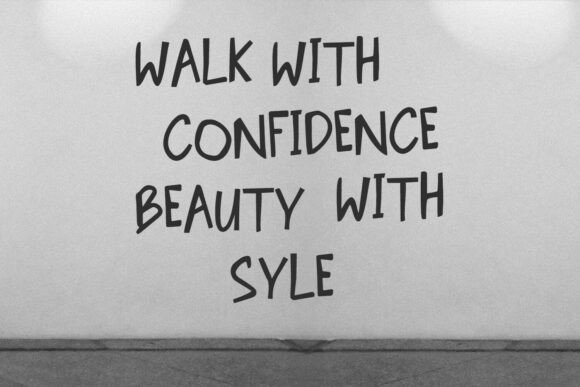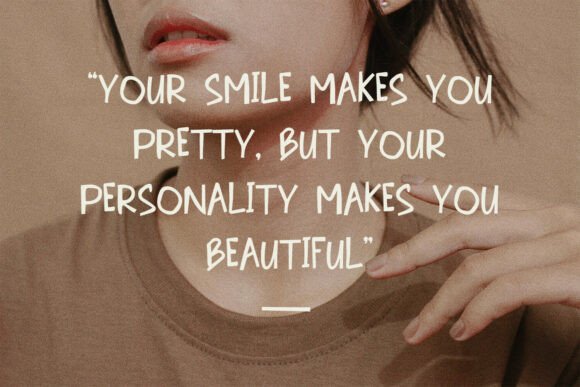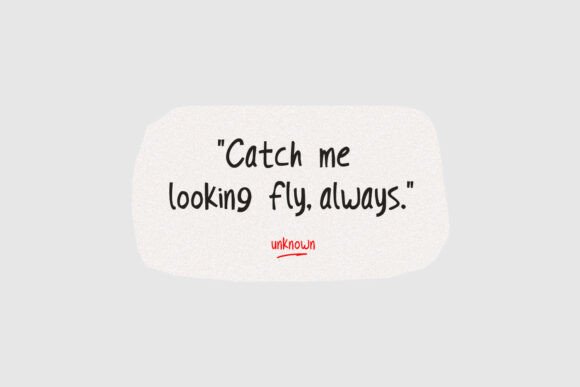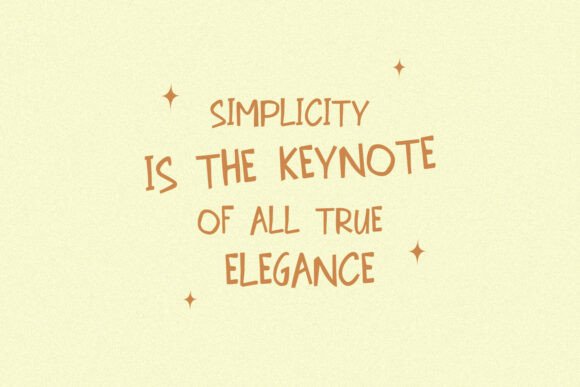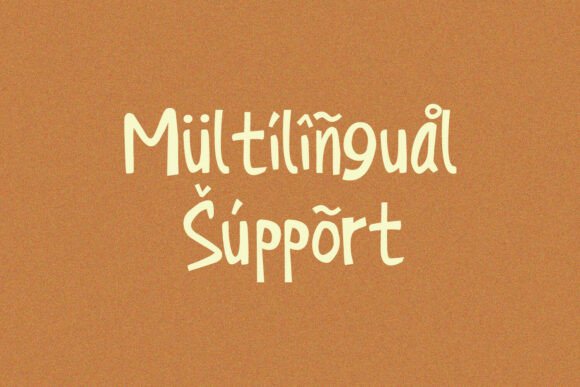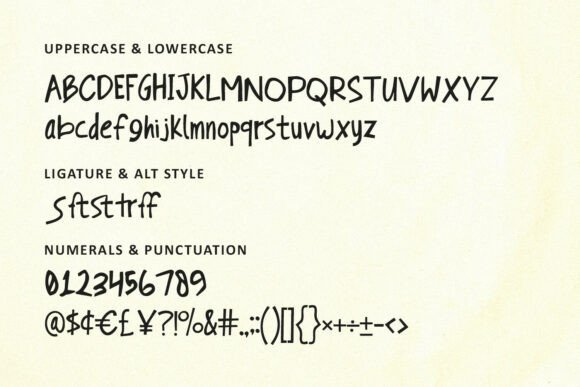
Introduction to Motreisa Font
Motreisa is a fun and playful handwritten font with tall, quirky strokes and a casual feel.
Its uneven letterforms bring an organic, childlike energy that makes designs feel friendly and approachable Perfect for posters, childrenโs projects, invitations, social media, and creative branding, Motreisa adds charm and character to any text.
Key Features of Motreisa Font